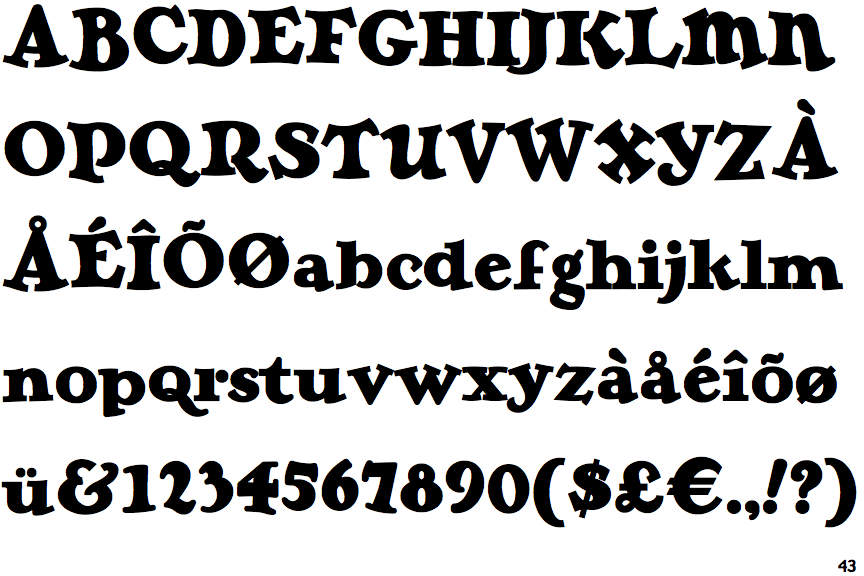
Whoopee Cushion NF
Based on a work by lettering artist Samuel Welo from the 1931 version of his Studio Handbook for Artists and Advertisers.
Designer: Nick Curtis Year: 2001 Publisher: Nick's Fonts |
The right-hand stroke of the lower-case 'n' is angled out.